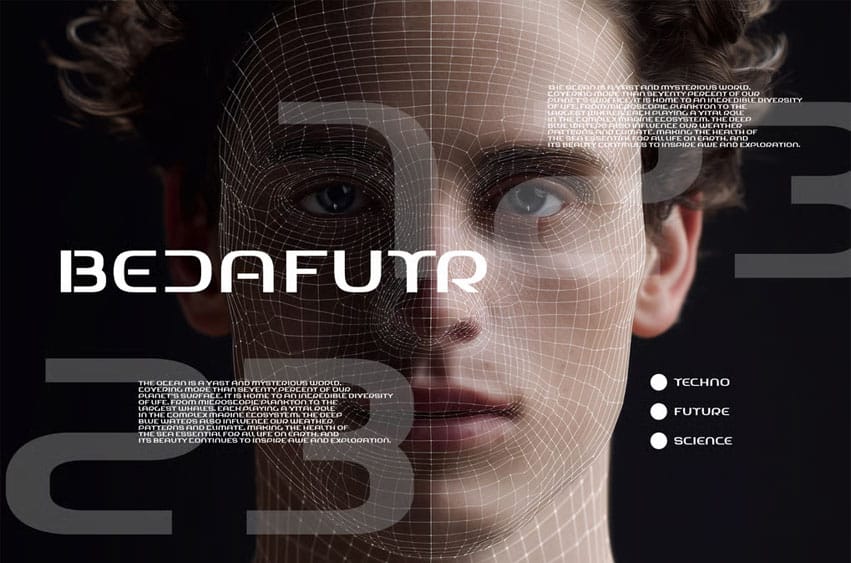
Bedafutr Font letters possess a precise, almost monolithic structure, rendered with sharp, angular terminals and an imposing verticality, suggesting complex circuit boards and advanced industrial design.
The inherent coolness of its design makes it instantly evocative of a high-budget science fiction movie.